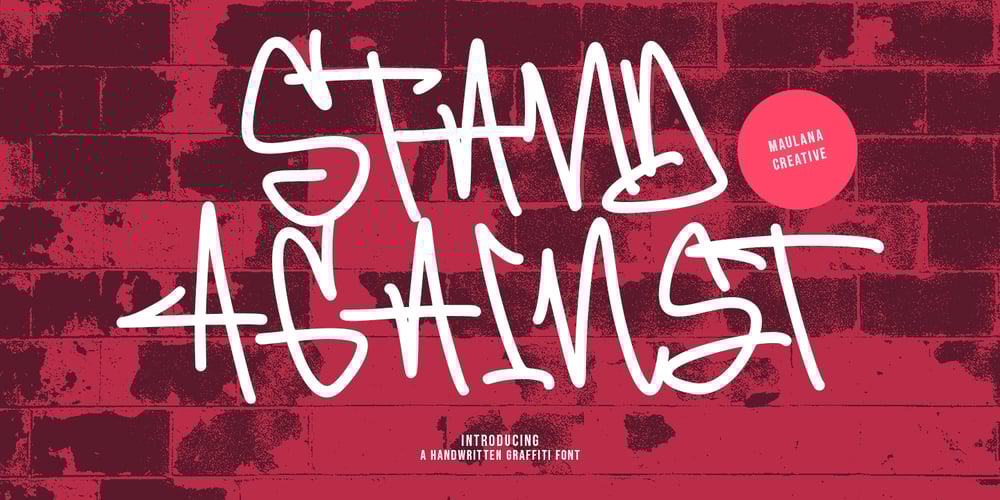
Stand Against Font Family was designed by Gilang Maulana and published by Maulana Creative. Stand Against contains 1 styles and family package options. Stand Against Handwritten Graffiti FontStand Against is a street display graffiti script font. With back slanted mono-line stroke, fun character with a bit of ligatures and alternates. To give you an extra creative work. Stand Against font support multilingual more than 100+ language. This font is good for logo design, Social media, Movie Titles, Books Titles, a short text even a long text letter and good for your secondary text font with script or signature. Make a stunning work with Stand Against font. Cheers, MaulanaCreative